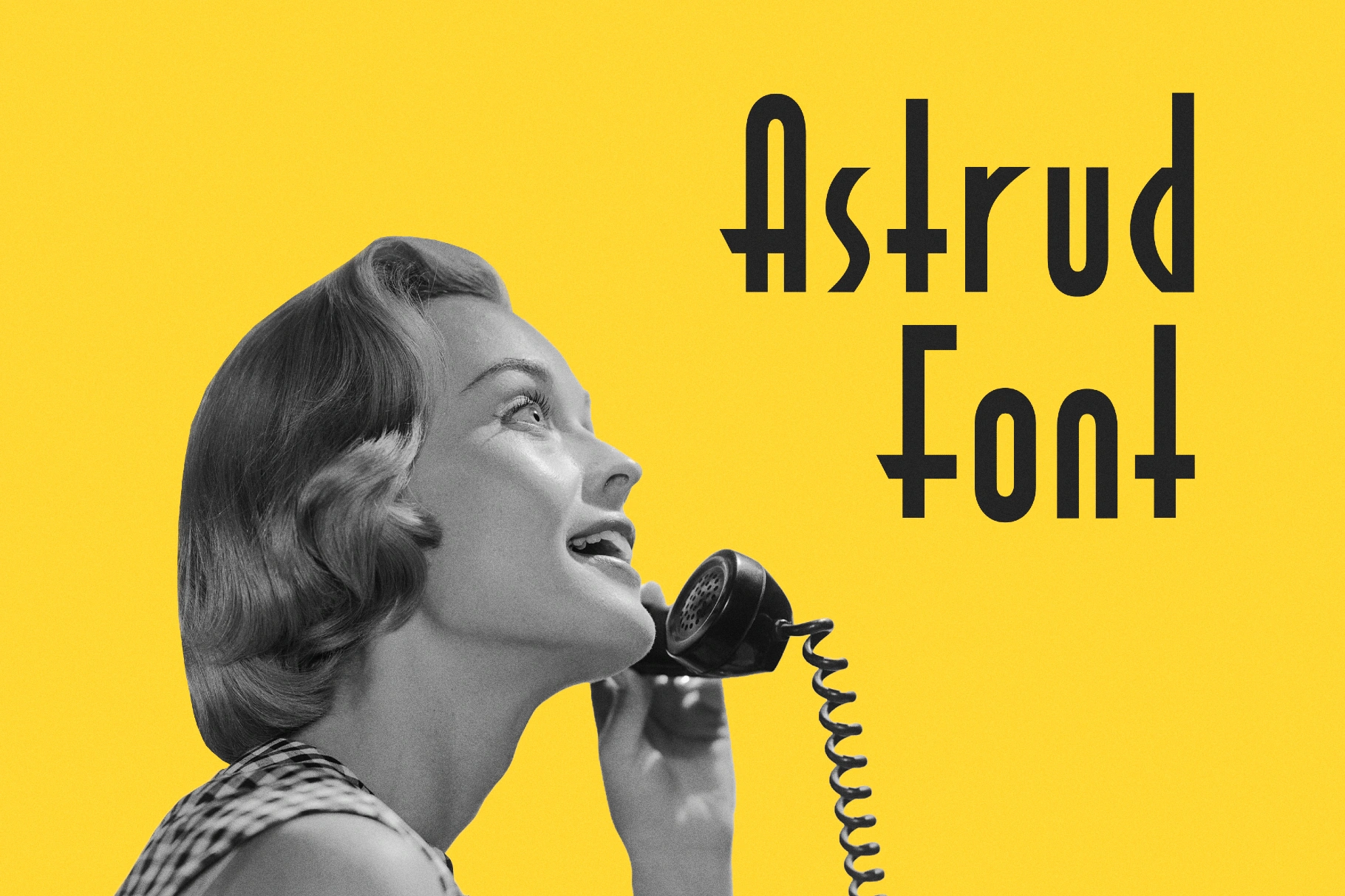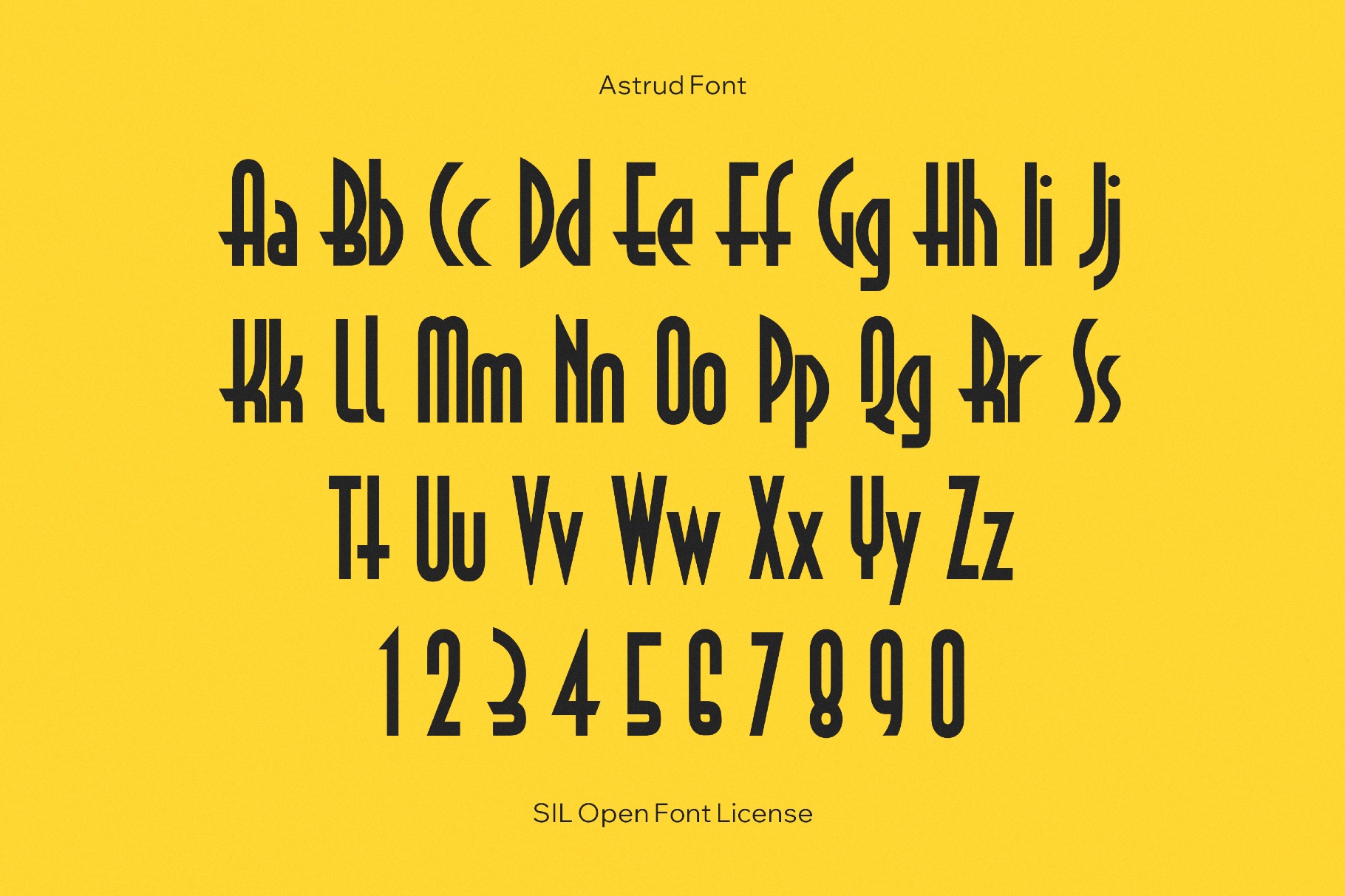
Astrud Font
Astrud font stretches tall, tapered letterforms with Art Deco poster flair and futurism. This typeface is drawing on the Swiss International Typographic Style and late-century corporate manuals. Its narrow silhouettes and theatrical rhythm are a reliable pick for retro branding, film or festival titles, posters, album covers, app interfaces, dashboards, packaging, editorial headlines, and web graphics.
• Uppercase and lowercase letters.
• Numbers, punctuation, and symbols.
• Multilingual coverage across extended Latin scripts.
• Extended support of mathematical symbols and metrics.
• Ligatures.